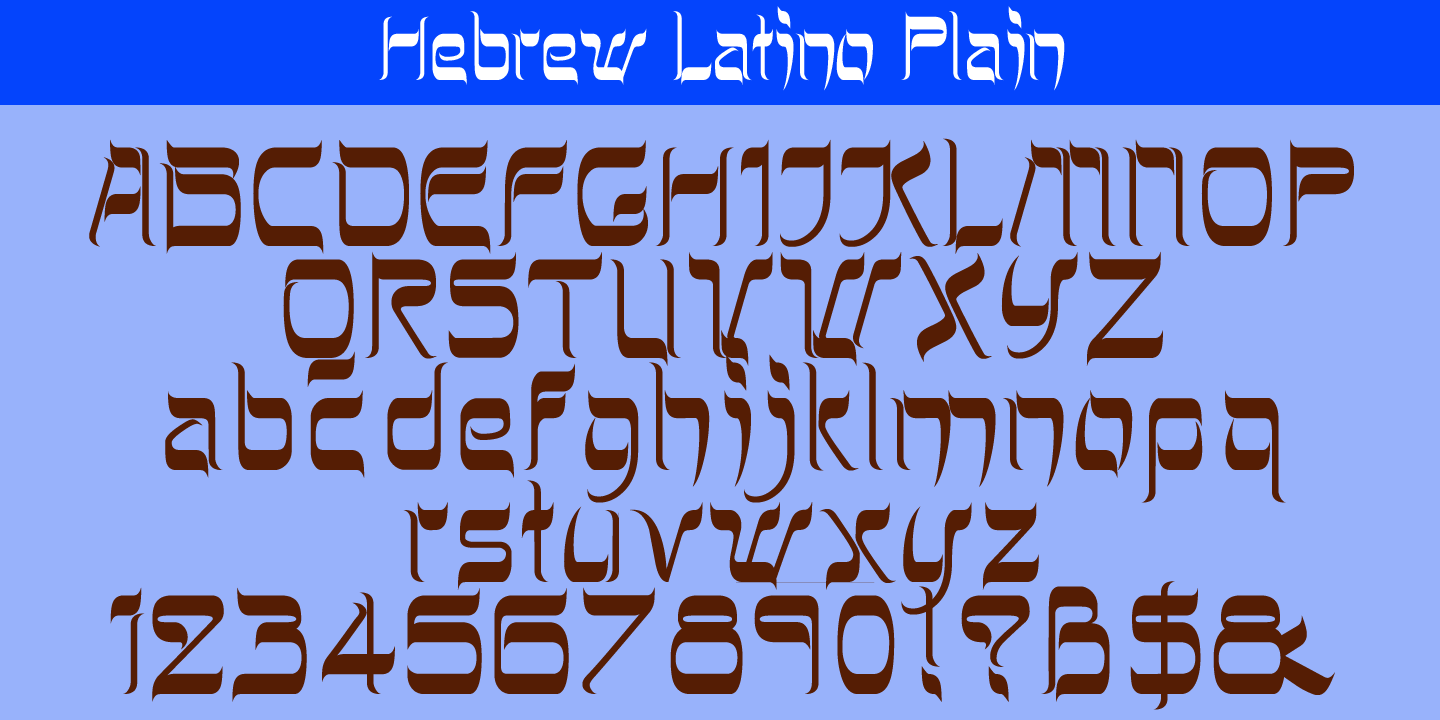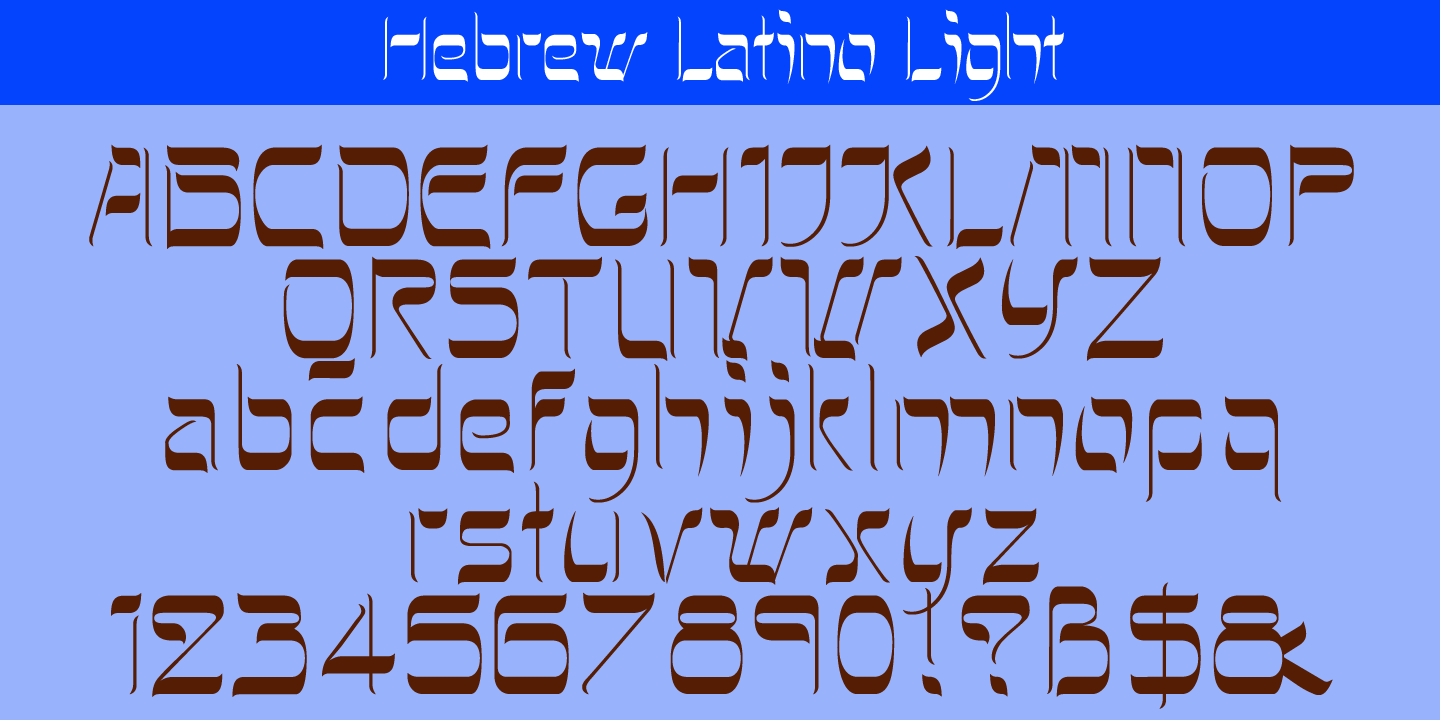
Hebrew Latino
Hebrew Latino was started out of frustration. I could not find a font that looked like Hebrew - actually I found one, but it had only capitals.
So I decided to make my own.
Strangely enough it looks a little bit Jugendstylish!
Here it is. Shalom! Gert Wiescher